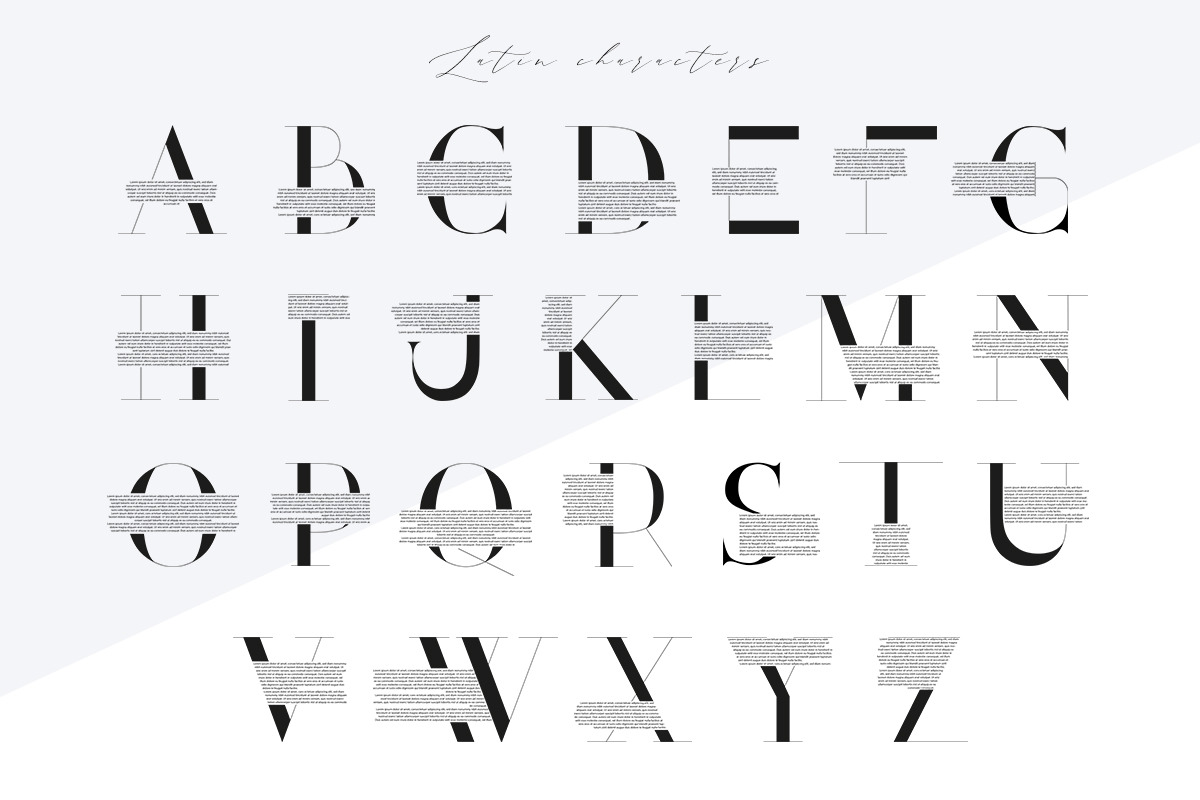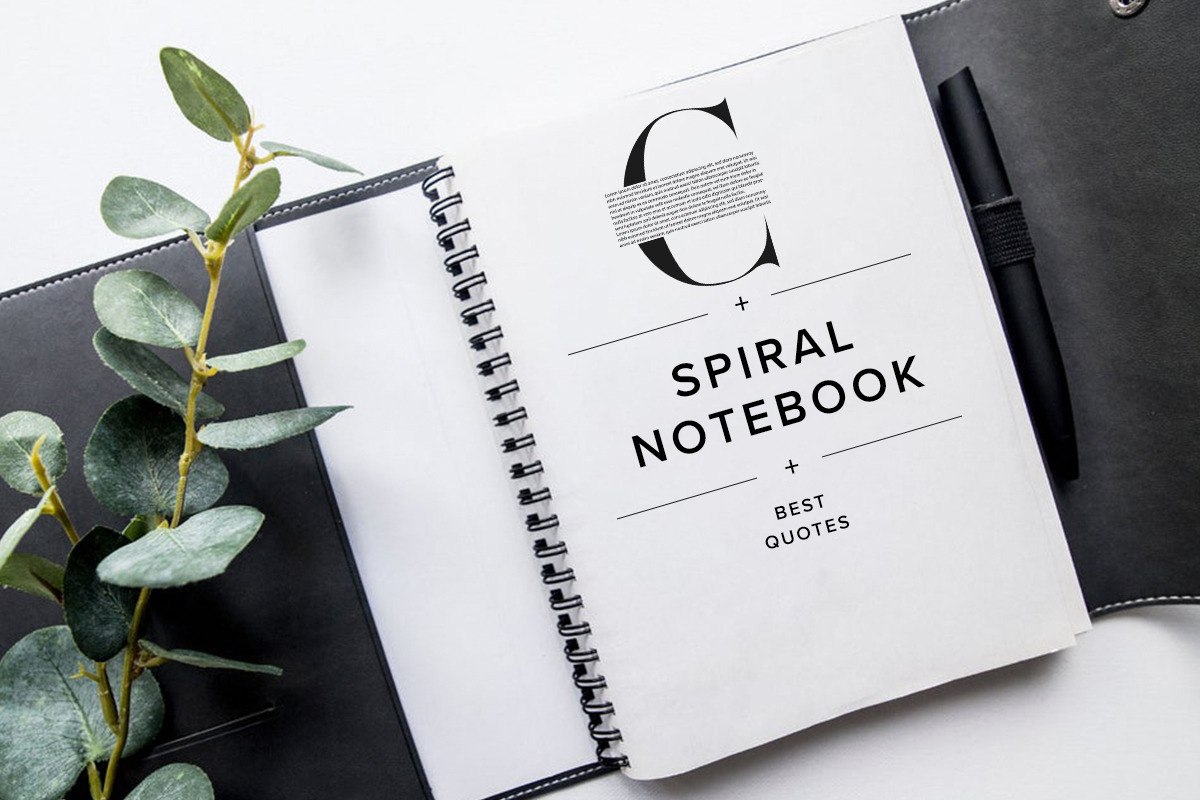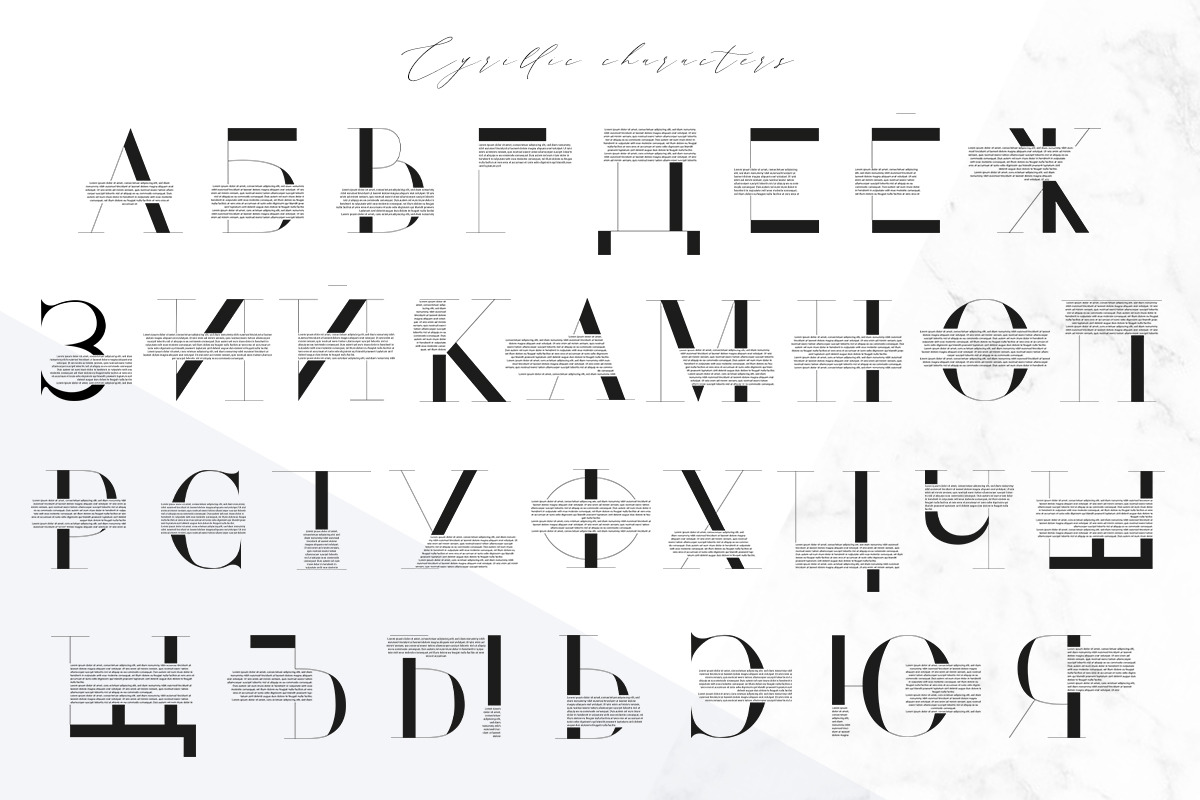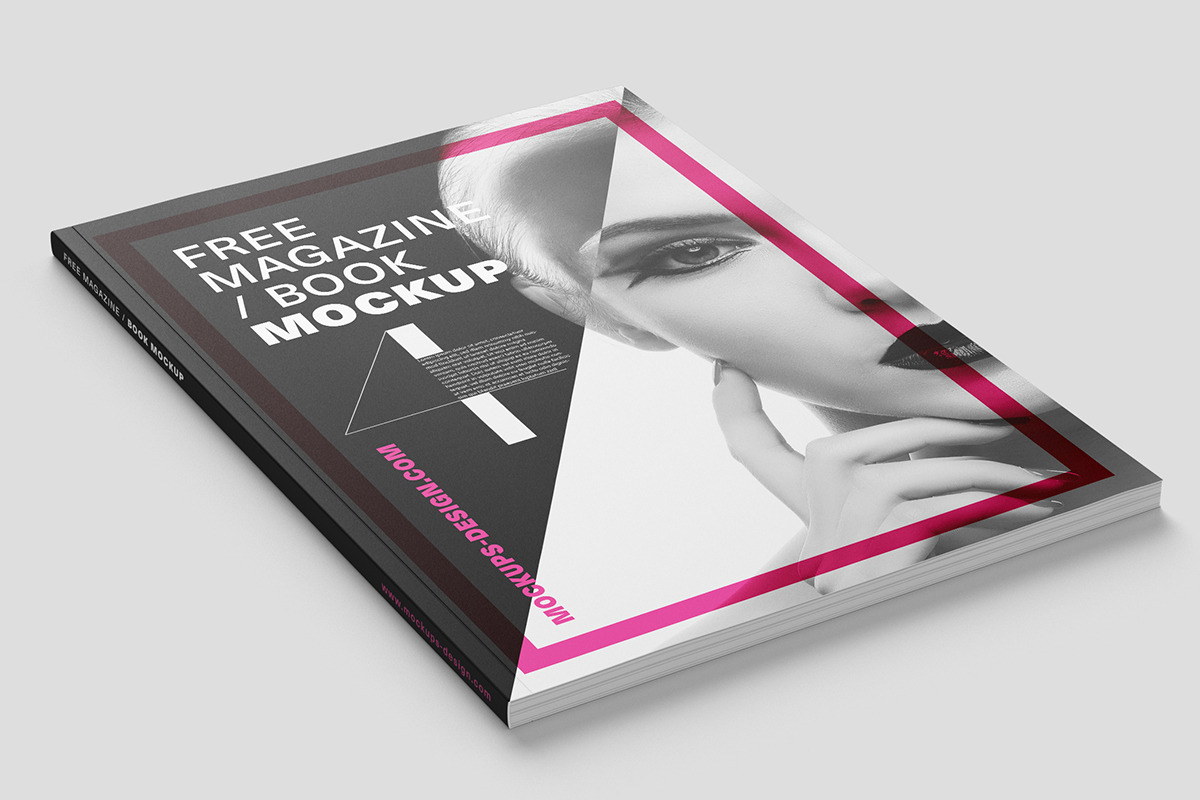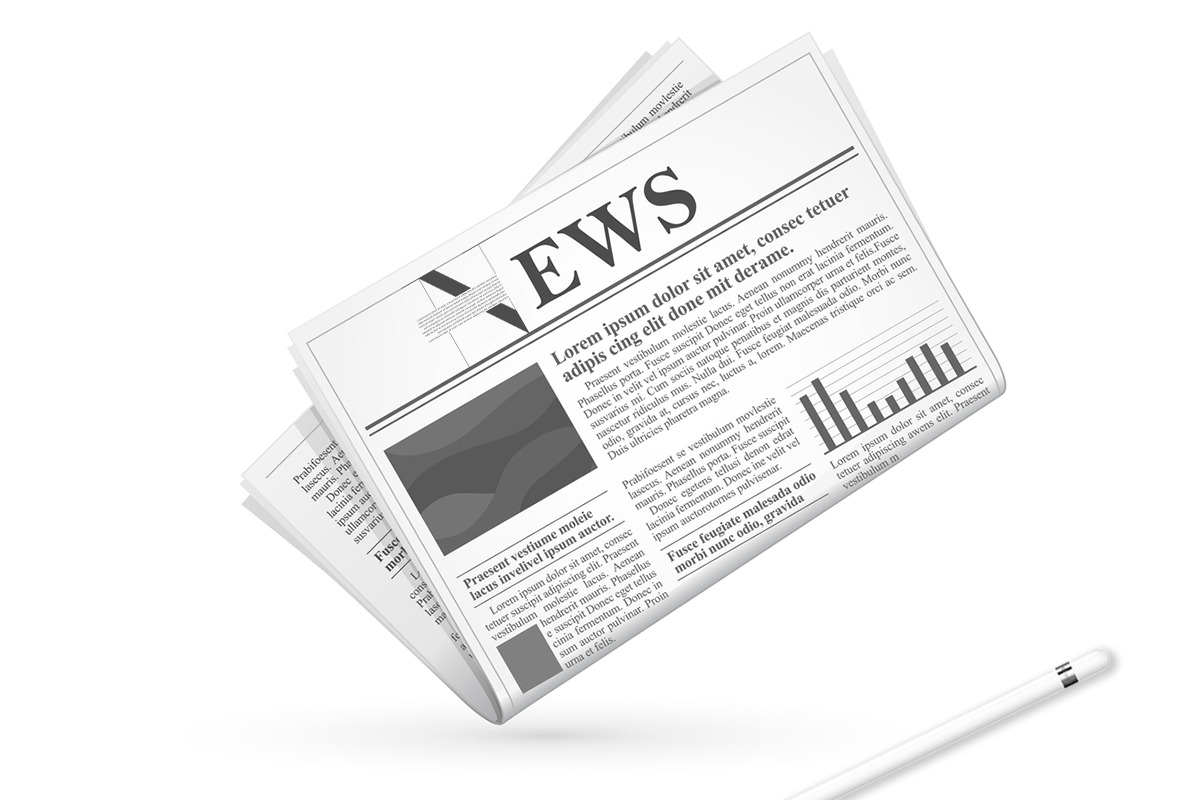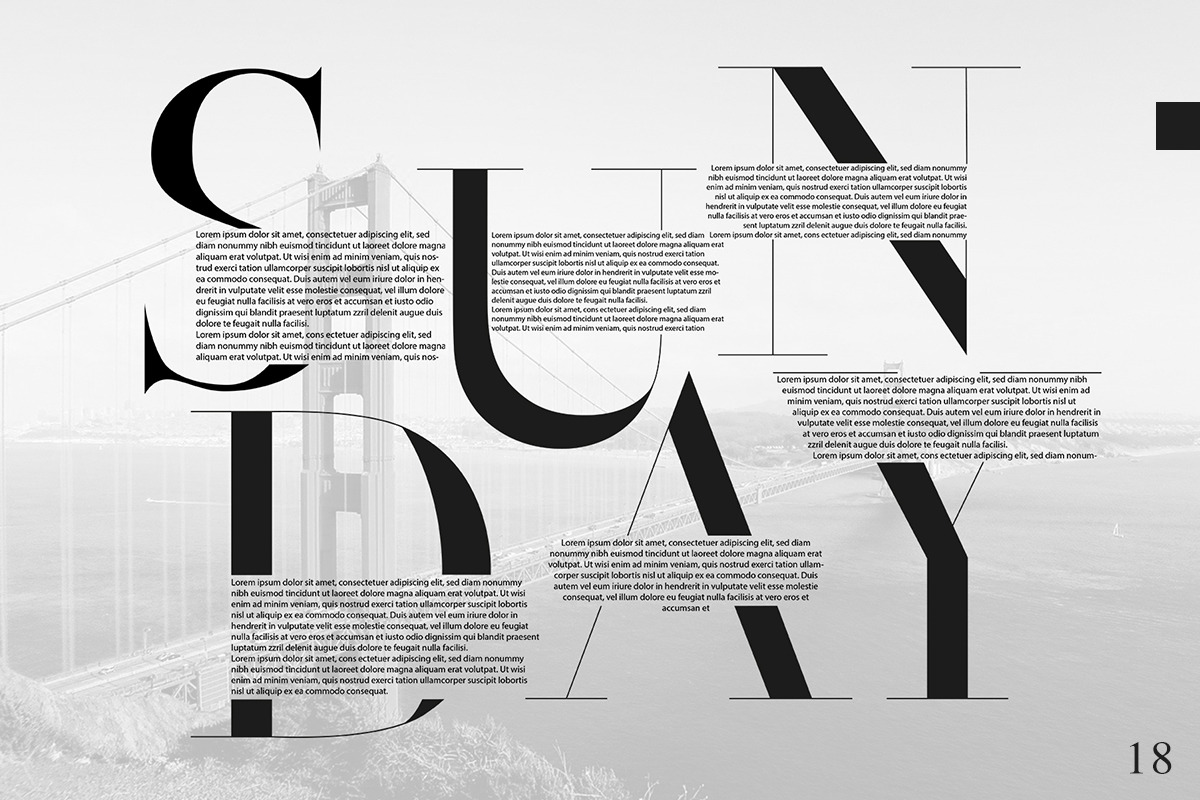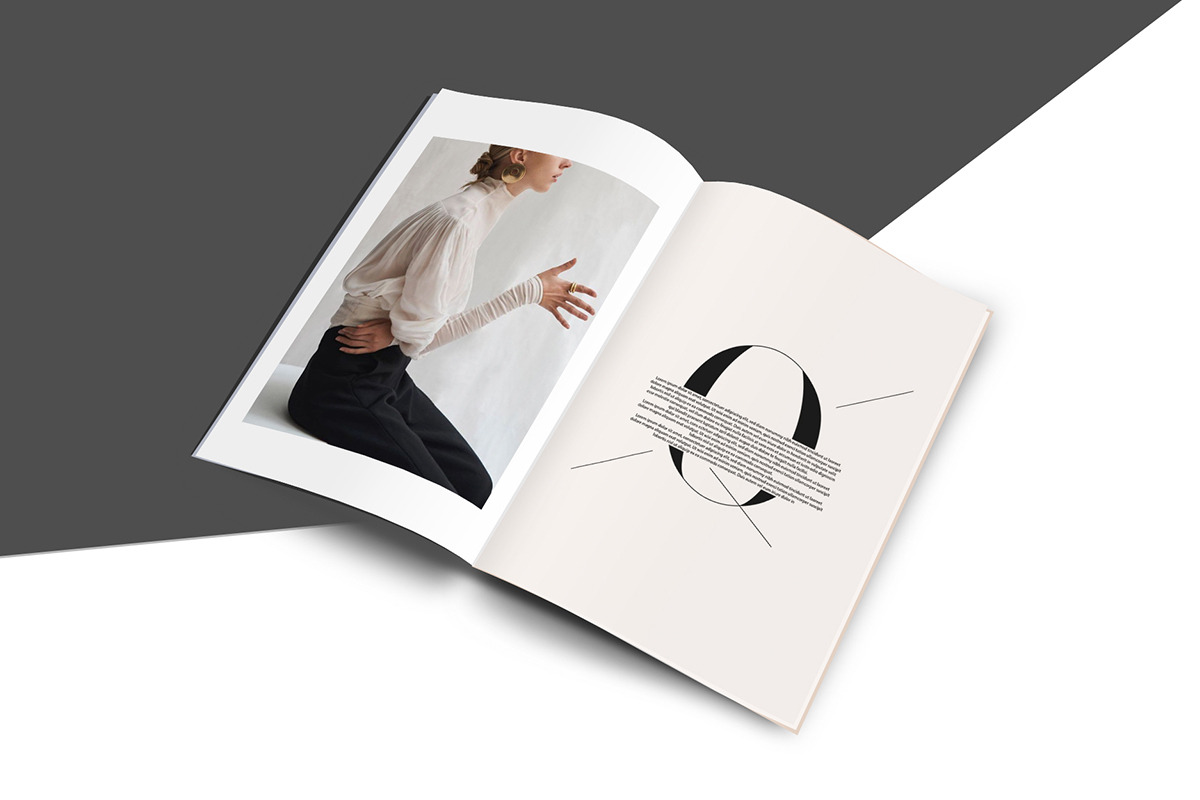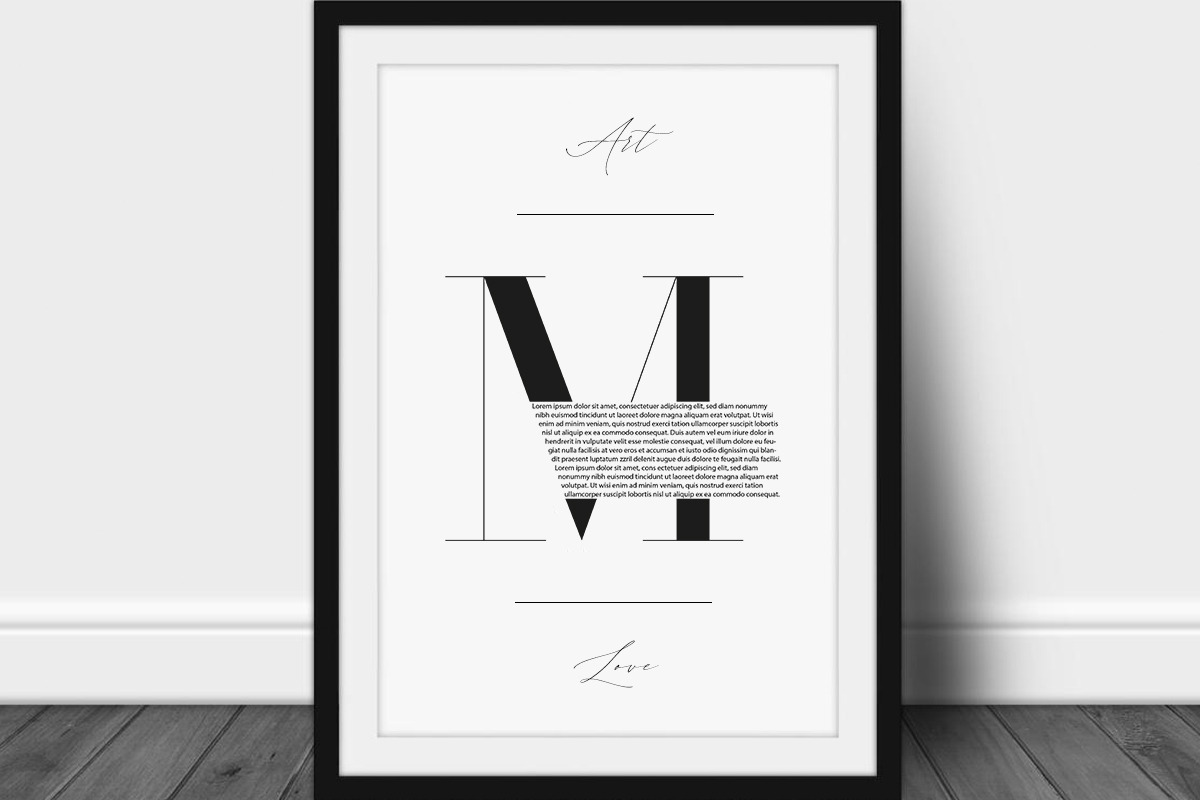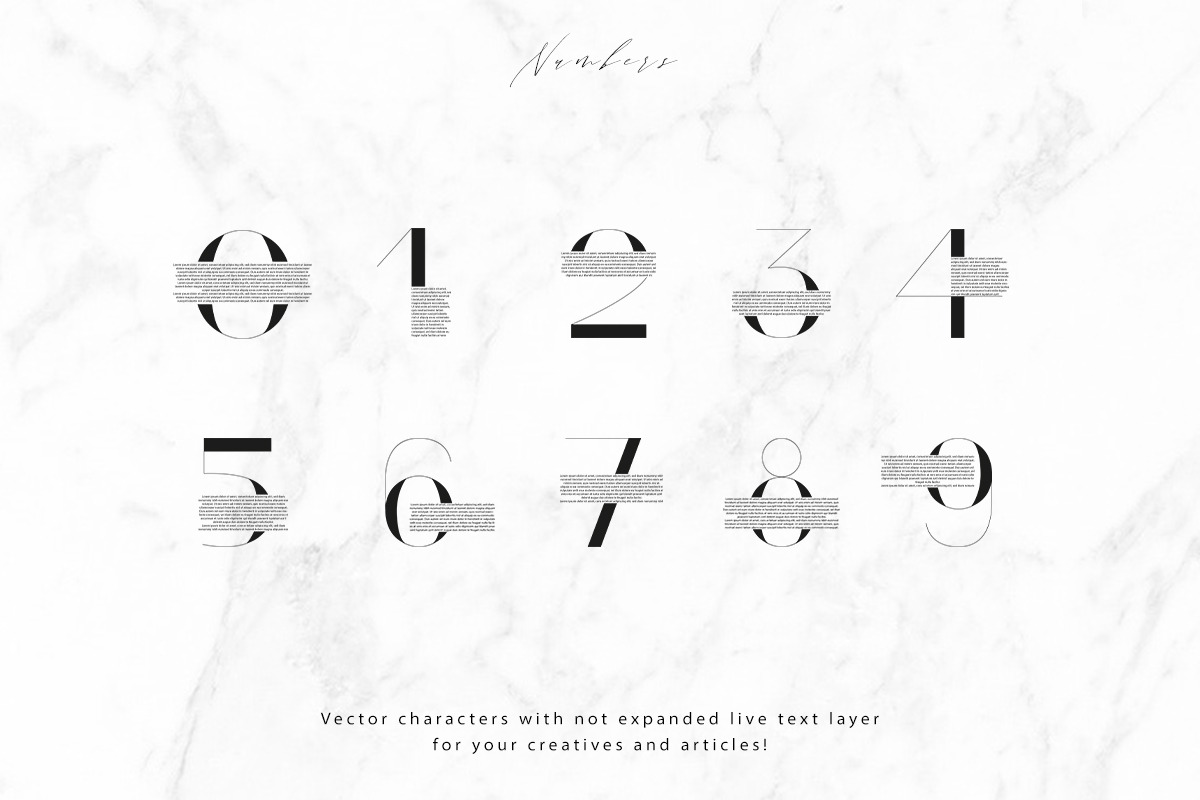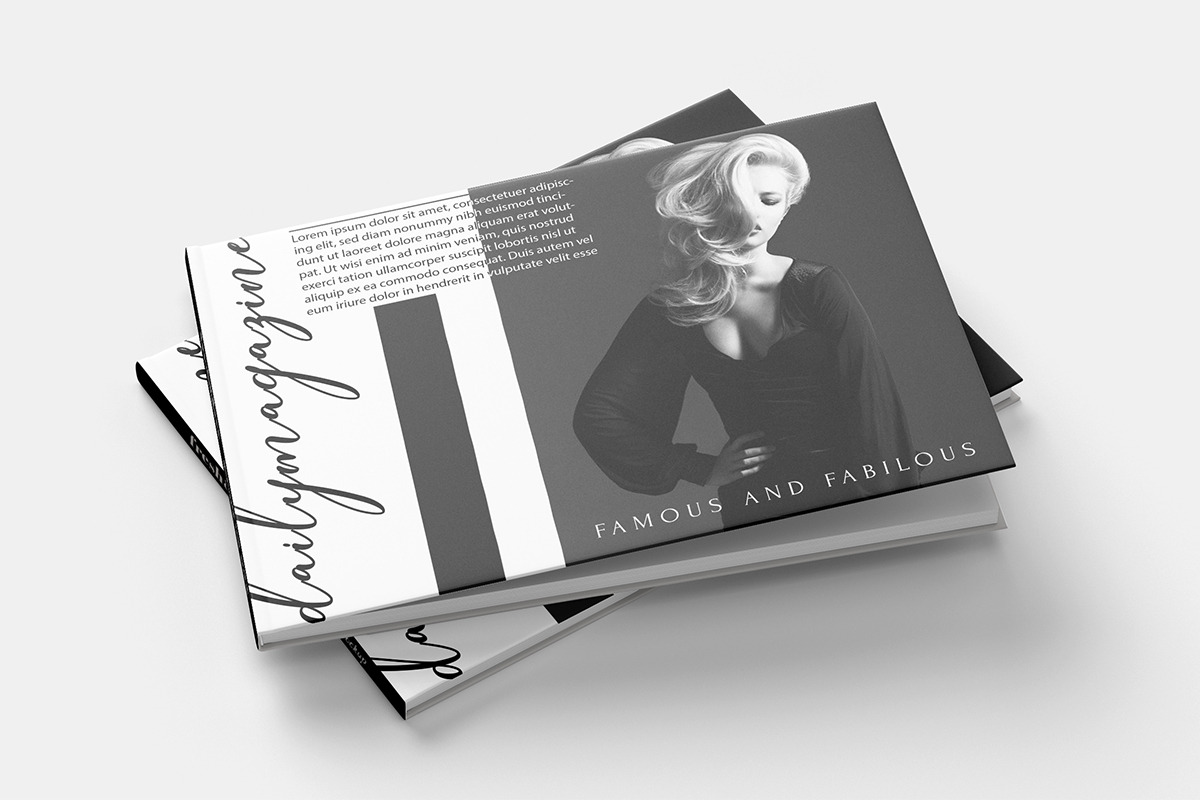
Article Symbols
Article is a perfect instrument for publishing designers. I used geometric black block forms combined with thin lines as I love the contrast in lettering. It's a vector characters with not expanded live text layer which you may change and insert your articles or any other info.
Dear buyers, please note: this is not a font but separated symbols of each letter.